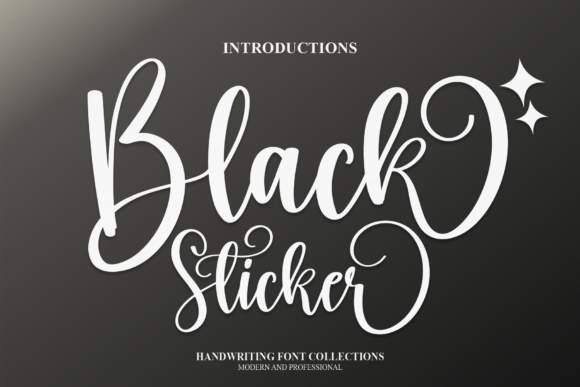
Black Sticker is a free-spirited whimsical script font, loaded with fluidity and undeniable style. Its smooth curves and graceful strokes evoke a sense of elegance and sophistication, making it the perfect choice to elevate your designs to new heights.
With its playful yet refined character, Black Sticker effortlessly adds a touch of whimsy and individuality to any project. Its versatility extends from charming wedding invitations to eye-catching social media posts, making it a must-have font for those seeking to make a lasting impression.
Created by the renowned Roronoa Zoro of the S.P.D., Black Sticker embodies the essence of creativity and artistry. Its carefully crafted letters exude a sense of authenticity and warmth, inviting you to explore your imagination and unleash your inner artist.